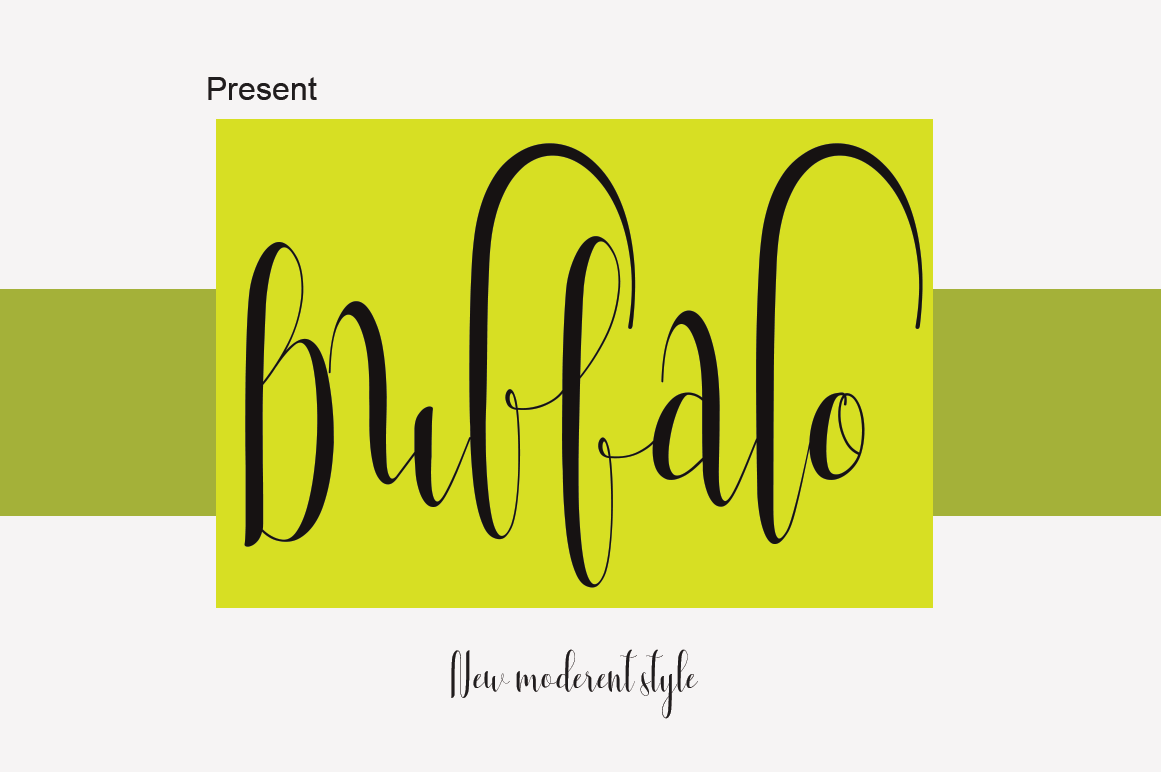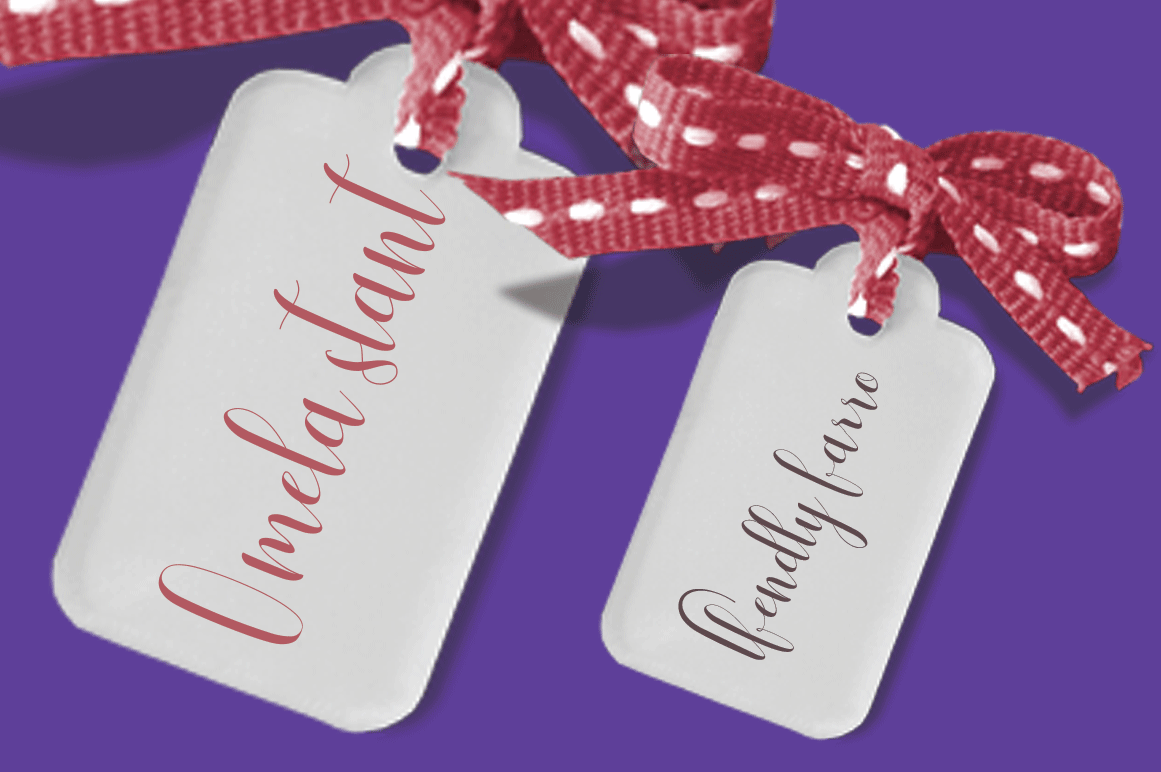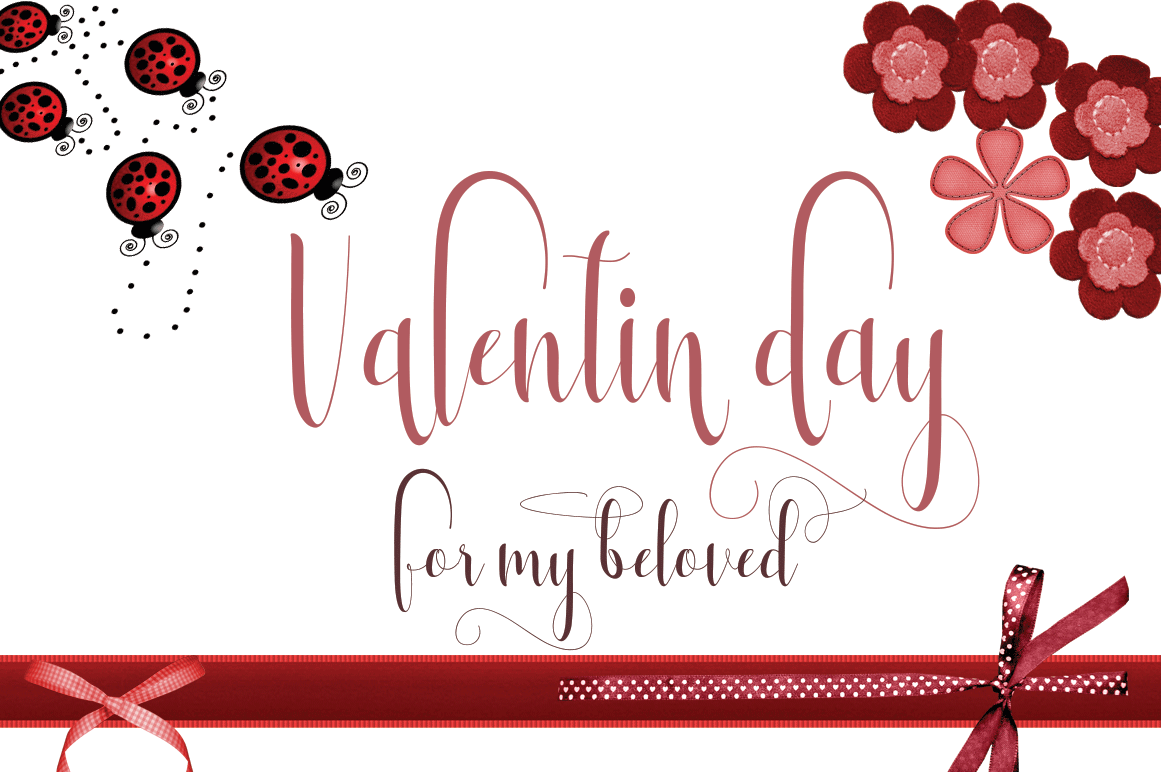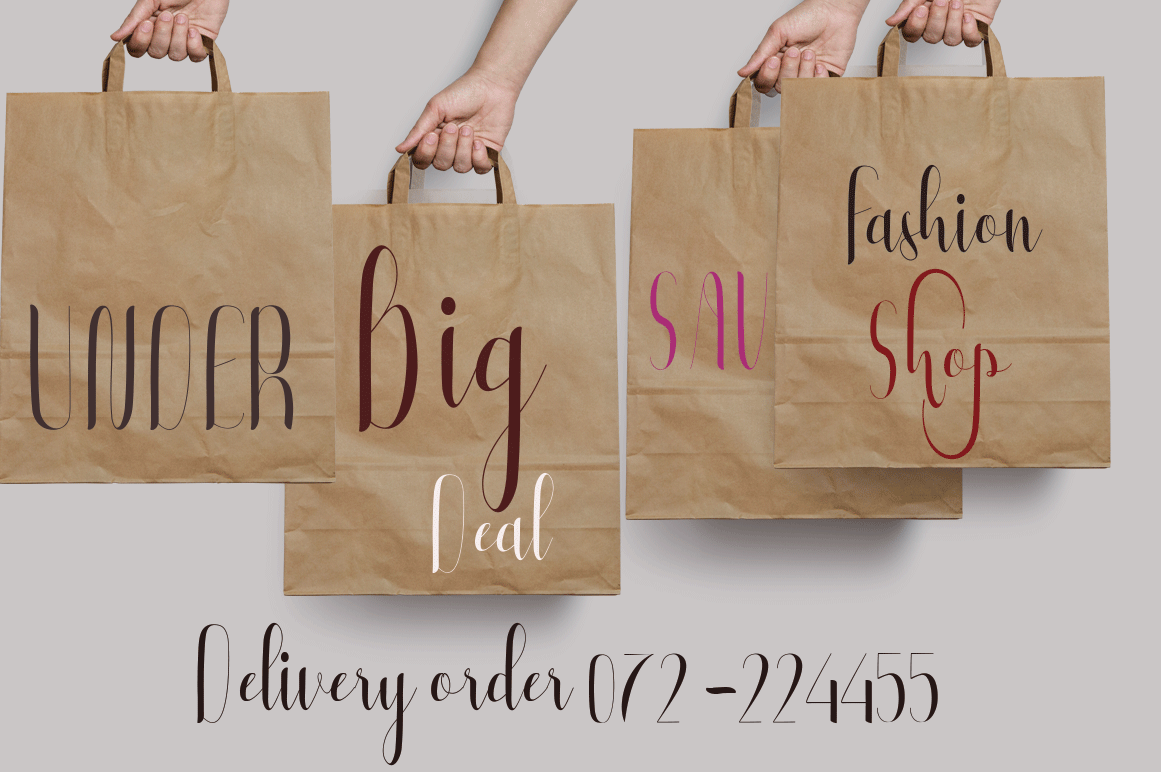
Buffalo Font
About Buffalo Font
The buffalo font is a smooth, playful typeface. It features lot’s of alternate characters with swashes, which makes it a perfect font for projects that need a personal touch.